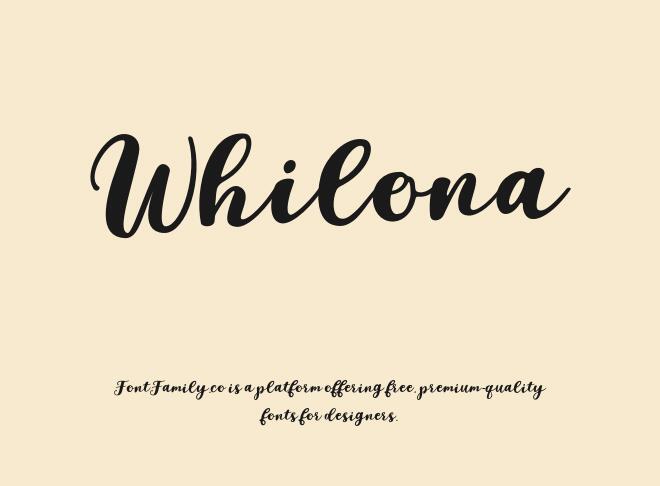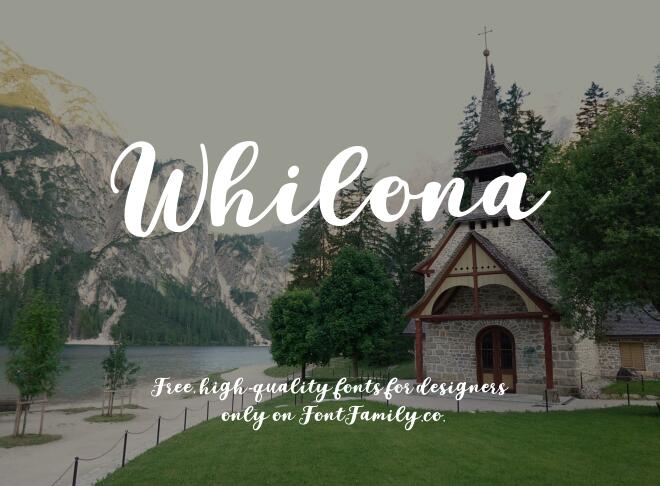
Whilona Font
Whilona Font is a modern, elegant script typeface designed by Creative Fabrica Fonts. With its fluid, handwritten style, it exudes a sense of sophistication and grace that's perfect for a variety of design projects. Its unique character stems from its delicate curves and refined strokes, making it an excellent choice for branding, wedding invitations, fashion magazines, logos, and more. Compared to other fonts, Whilona Font stands out for its versatility and distinct charm. It blends well with both minimalist and elaborate designs, making it a great tool for designers. Its modern elegance makes it a preferred choice for those looking to add a touch of class to their design. Choose Whilona Font to give your designs a unique, stylish touch.